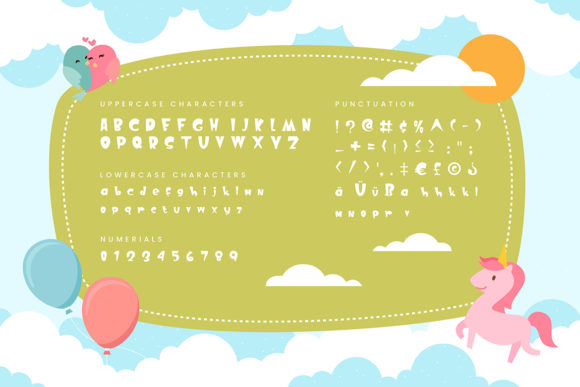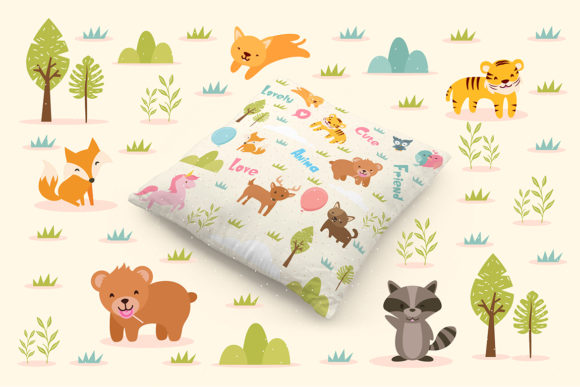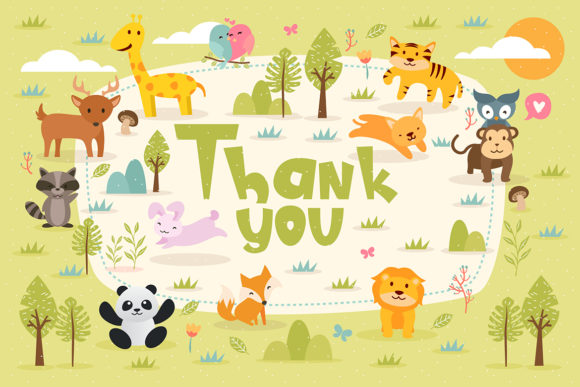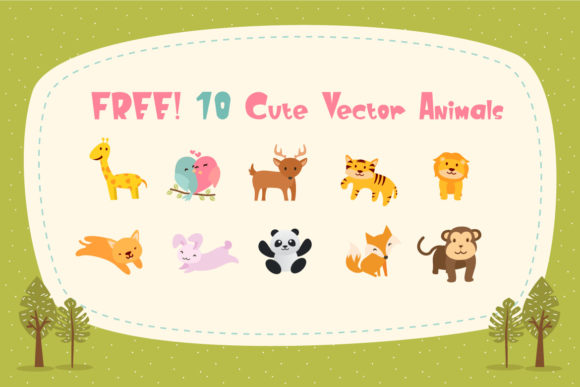
Introducing Anima: The Playful Font That Brings Joy to Children’s Projects
I’ll never forget the time I was working on a children’s book project, and I just couldn’t find the right font to match the playful tone of the story. My client was looking for something fun, energetic, and engaging, but everything I tried seemed either too boring or too over-the-top. That’s when I stumbled upon Anima, a fun children display font that instantly brought the project to life. If you’re a designer, crafter, or creative hobbyist looking for a new and playful font for children, you’re in luck! In this article, we’ll dive into the world of Anima and explore its features, uses, and alternatives.
A Personal Review of Anima Font
So, what makes Anima so special? Let’s take a closer look.
What I Love About Anima ✨
- ✅ Playful and Fun: Anima is designed to bring a smile to children’s faces. Its playful curves and irregular shapes make it perfect for kids’ projects, such as book covers, posters, and activity sheets.
- ✅ Highly Versatile: This font is not just limited to children’s projects. You can use it for a wide range of creative endeavors, from crafting and DIY tutorials to social media graphics and presentations.
- ✅ Easy to Read: Despite its playful nature, Anima is surprisingly easy to read, even at smaller font sizes. This makes it perfect for body text in children’s books or educational materials.
While Anima is an excellent font, it’s not without its quirks. Here are a few things to keep in mind:
- ⚠️ Limited Formality: Anima is a playful font, and as such, it may not be the best choice for formal or professional projects.
- ⚠️ Glyph Limitations: While Anima comes with a range of glyphs and OpenType features, it may not have every special character or symbol you need.
The Story Behind Anima
Anima was designed with one goal in mind: to bring joy and playfulness to children’s projects. Its creator, a freelance designer with a passion for typography, wanted to craft a font that would inspire creativity and imagination in kids and adults alike. With its unique blend of curves and irregular shapes, Anima is sure to delight.
Q: What is Anima font best used for?
A: Anima font is best used for children’s projects, such as book covers, posters, and activity sheets. It’s also great for crafting and DIY tutorials, social media graphics, and presentations.
Q: Is Anima a script font?
A: No, Anima is a display font with a unique blend of curves and irregular shapes. While it has some script-like qualities, it’s not a traditional script font.